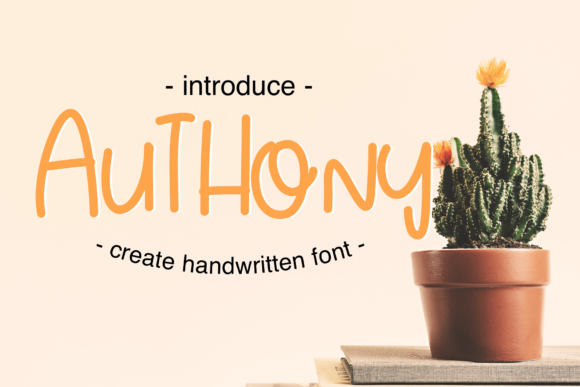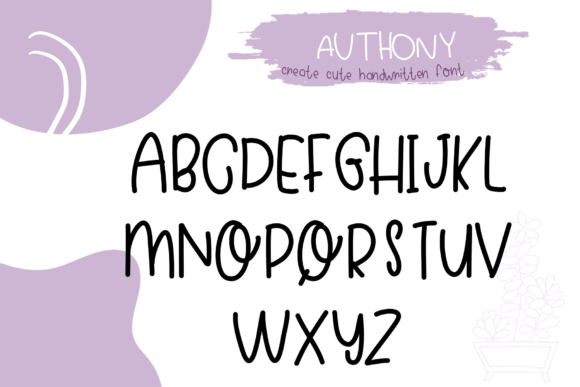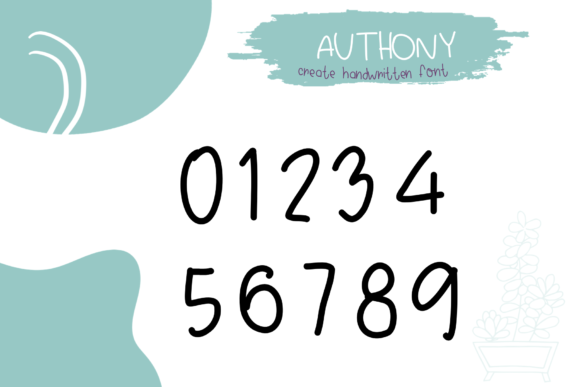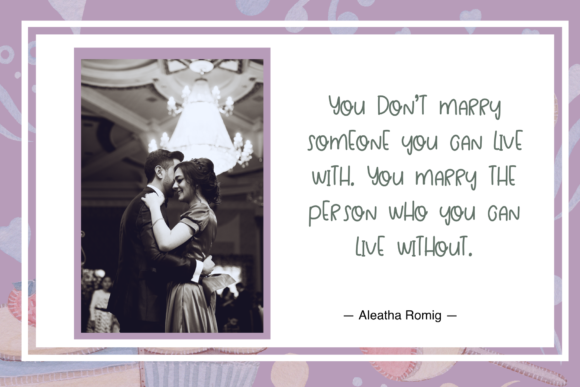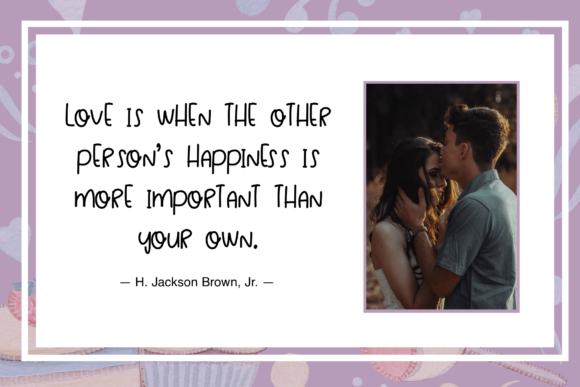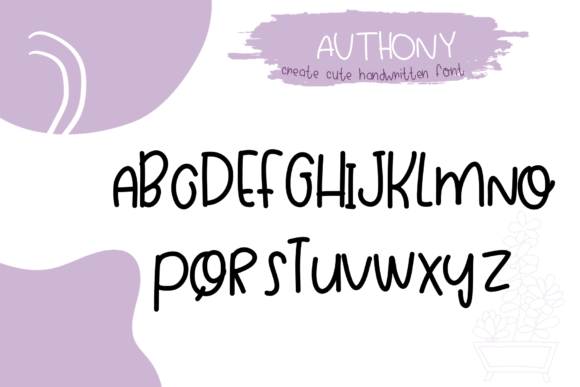
Authony Font
About Authony Font
Authony sounds like a delightful and charming handwritten font that can infuse your designs with joy and playfulness. Its cute and quirky style makes it perfect for adding a touch of personality to various projects. Here are some wonderful ways to use Authony and make your creative ideas shine:
1. Logo Design: Create fun and memorable logos for brands, businesses, or personal projects using Authony’s playful and whimsical lettering.
2. Invitation Cards: Design cheerful and eye-catching invitation cards for parties, birthdays, or special events, showcasing Authony’s joyful touch.
3. Children’s Book Illustrations: Utilize Authony in children’s book illustrations, adding a sense of wonder and excitement to the stories.
4. Product Packaging: Apply Authony on product labels or packaging, especially for children’s products, to create a lively and engaging look.
5. Handwritten Quotes: Design quote graphics with uplifting or funny messages using Authony’s cute and quirky style, perfect for social media sharing.
6. Stationery: Create playful and charming stationery, such as note cards, notepads, or stickers, using Authony’s unique lettering.
7. Poster Design: Use Authony to design vibrant and attention-grabbing posters for events, promotions, or inspirational messages.
8. Greeting Cards: Design delightful greeting cards for various occasions, from thank-you cards to get-well-soon messages, using Authony’s cheerful handwriting.
9. Blog Graphics: Apply Authony to design eye-catching blog graphics, making your content more engaging and inviting to readers.
10. Social Media Posts: Utilize Authony in your social media posts to create captivating visuals that stand out in the feed.
11. Party Decorations: Design playful and lively decorations for parties and celebrations, incorporating Authony into banners, signage, and more.
12. DIY Crafts: Apply Authony to various DIY craft projects, from handmade gift tags to personalized scrapbooking.
13. Stickers: Create fun and adorable stickers using Authony’s cute lettering, perfect for customizing notebooks, planners, or laptops.
14. Coloring Pages: Design coloring pages with cute illustrations and Authony’s quirky lettering, offering a joyful and relaxing activity for both kids and adults.
15. Menu Cards: Use Authony to design charming menu cards for cafes or restaurants, giving the dining experience a fun and welcoming vibe.
16. T-shirt Designs: Apply Authony in t-shirt designs, adding a playful and unique touch to apparel.
17. Party Favors: Design personalized party favors, such as bookmarks or keychains, with Authony’s charming handwriting.
18. School Projects: Utilize Authony in school project presentations, making them visually appealing and engaging.
19. Event Signage: Create lively and attractive event signage using Authony, directing guests with a joyful touch.
20. Art Prints: Design printable art with funny or inspirational messages, showcasing Authony’s unique and captivating lettering.
In conclusion, Authony is a cute and quirky handwritten font that brings joy and personality to your designs. Its playful and lively style opens up numerous possibilities for a wide range of projects, from logo design to party decorations and more. Embrace the joyful touch of Authony and let it breathe life into each of your creative ideas, making them stand out and leave a lasting impression on your audience. With Authony, your designs are sure to be filled with happiness and charm, spreading positivity and delight wherever they go!